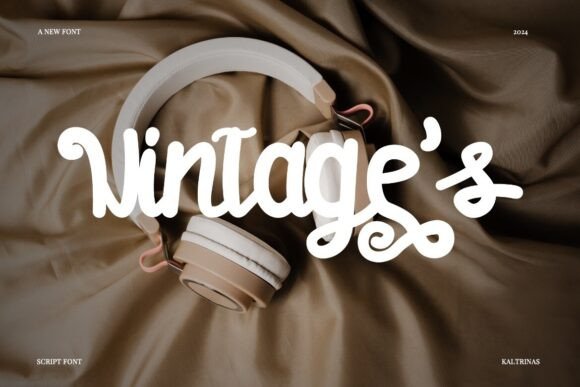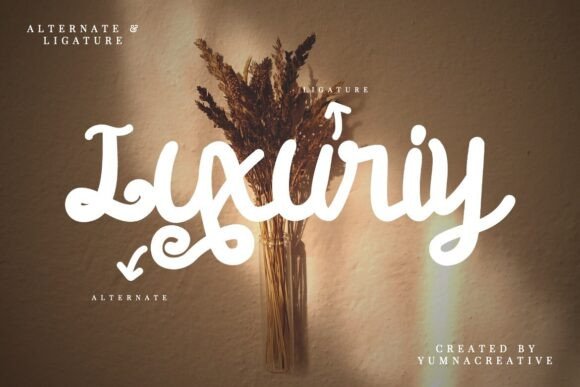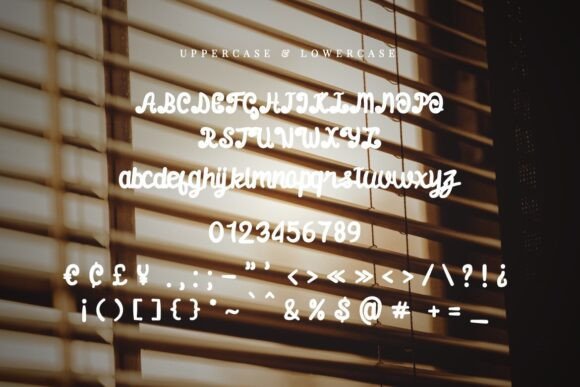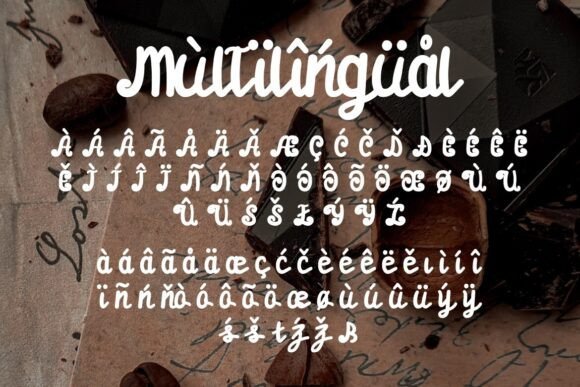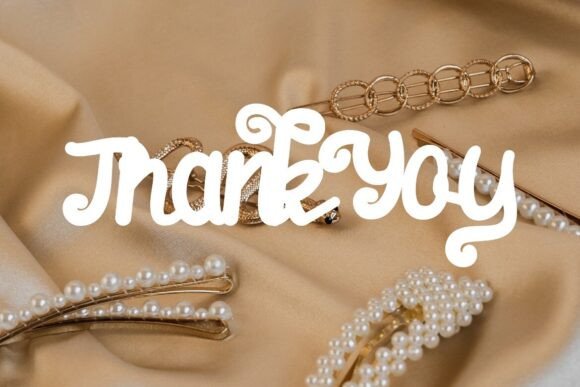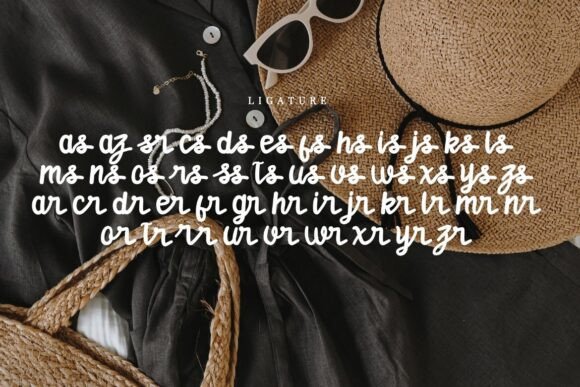
Introduction to Kaltrinas Font
Kaltrinas is a stylish, bold vintage script font.
It has a strong, classic look with elegant curves, making it perfect for designs that need a touch of old-school charm and flair .
Key Features of Kaltrinas Font